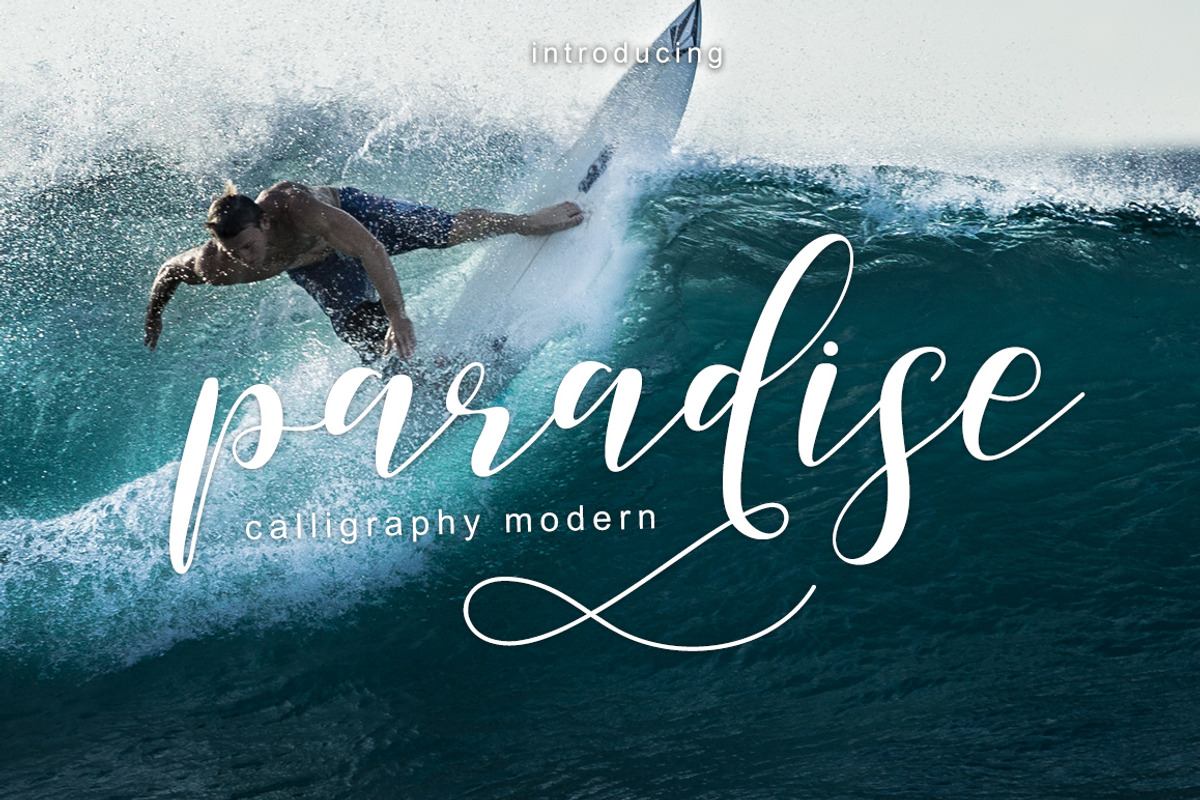
Paradise Calligraphy Modern Font + Bonus Free Download
You must purchase this font for commercial use. However, you can download Paradise Calligraphy Modern Font + Bonus Free Download for testing purposes. Paradise is a stylish, elegant calligraphy font with modern flourishes and delicate letterforms, perfect for wedding invitations, branding, logos, greeting cards, and any project that needs a refined, artistic touch.
The graceful, hand-lettered design of Paradise gives it a personal, luxurious feel, making it ideal for projects that aim to evoke beauty and sophistication. Plus, with the bonus elements included, you’ll have additional creative assets to enhance your typography, such as decorative swashes and other flourishes.